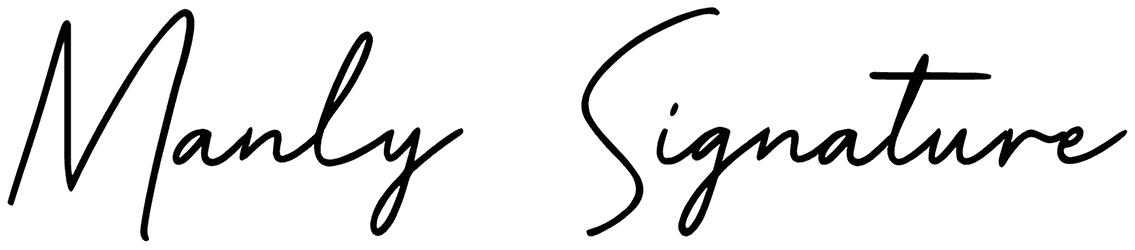
Manly Signature Font
The remarkable thing about Manly Signature font is that it engraves a person’s personality on paper, and each curve is representative of that individuality.
This signature font gives a personal touch to any project or communication and conveys a sense of warmth and authenticity that cannot be replicated with digital letters. In a world dominated by sterile computer-generated fonts, this script font can stand out in love letters, thank-you notes, or personal greeting cards as a reminder of innate human creativity.